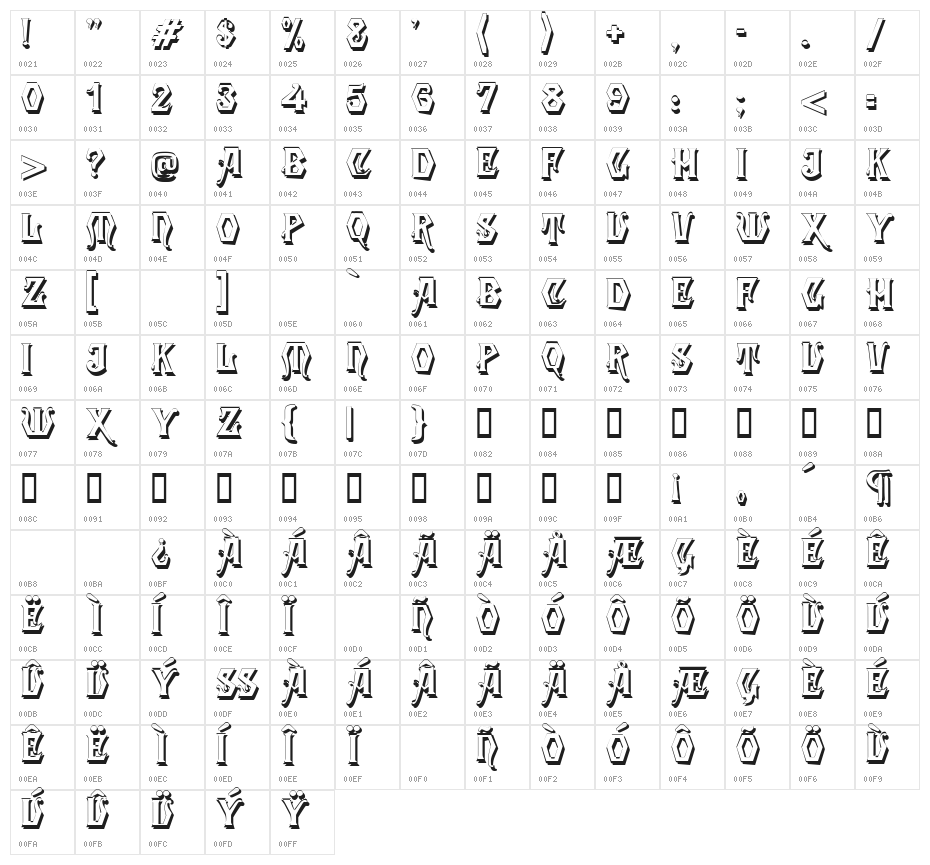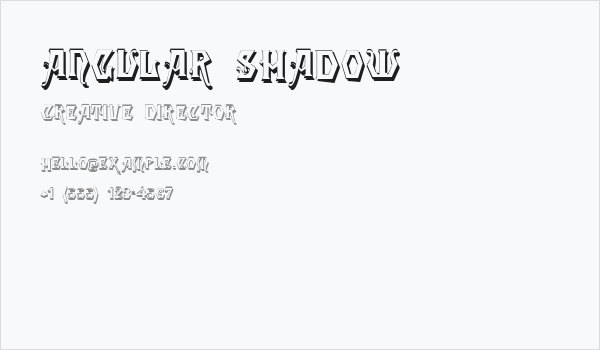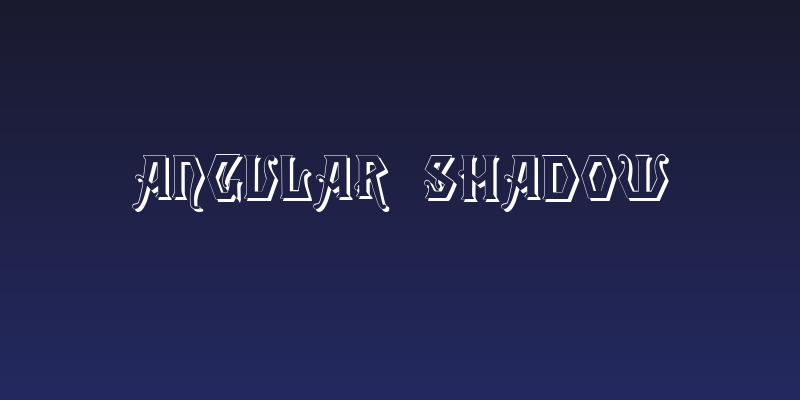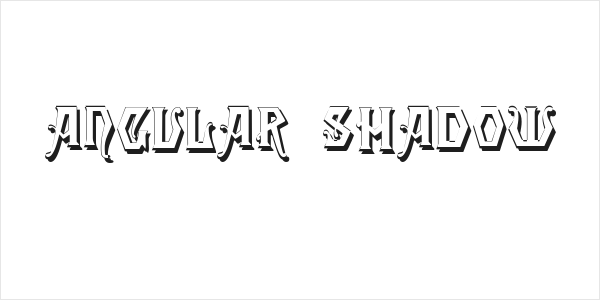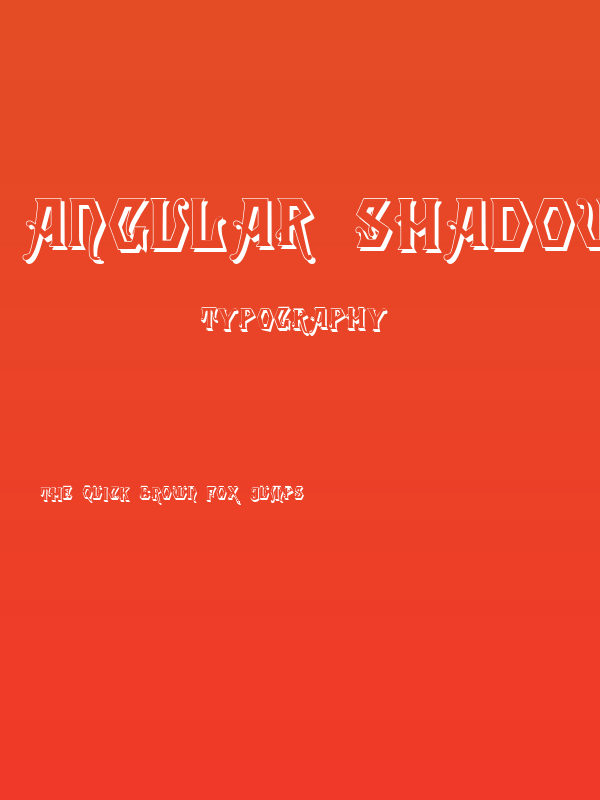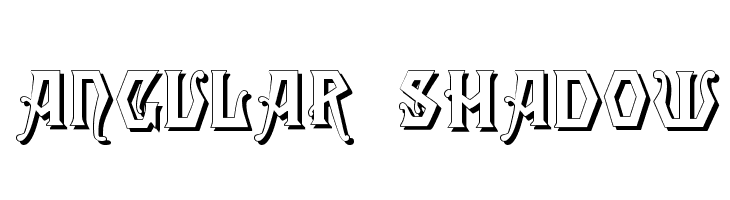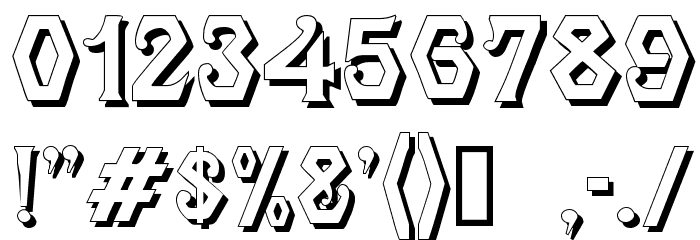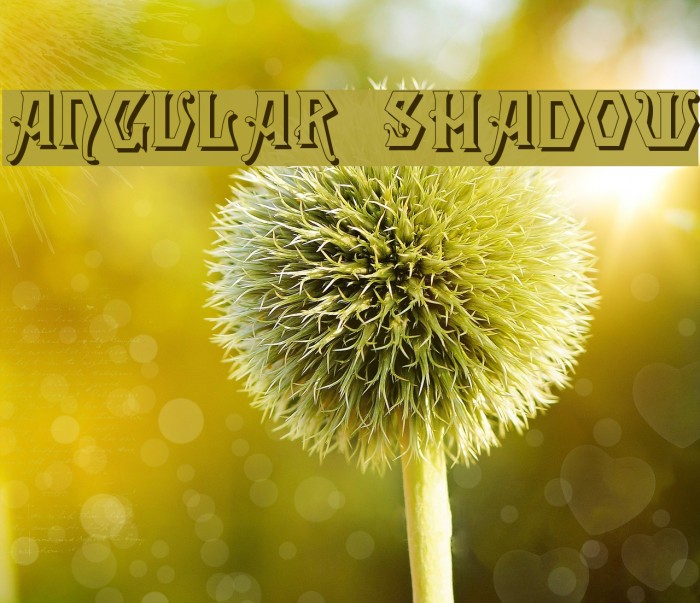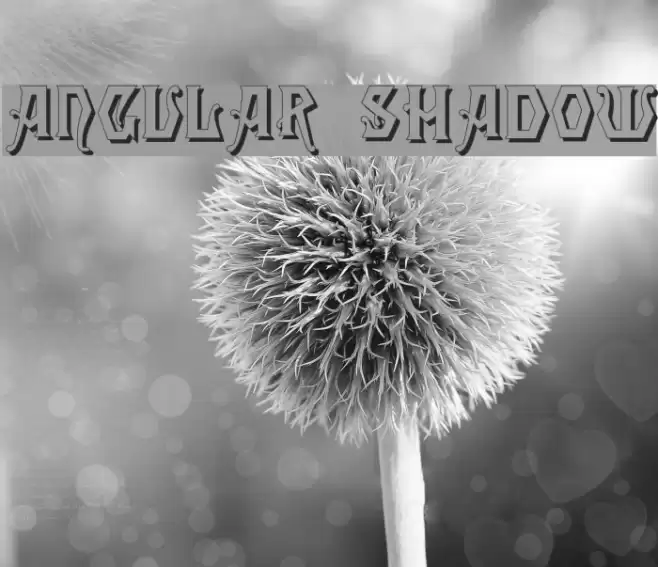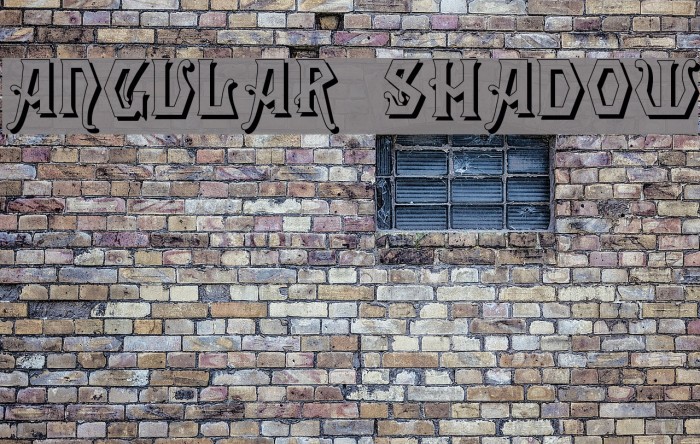
Angular Shadow Font
Angular Shadow Description
This font features a bold, angular design with a distinct shadow effect that gives each character a three-dimensional appearance. The sharp edges and geometric shapes create a striking and modern look, while the shadow adds depth and visual interest. The uppercase letters are particularly prominent, with a strong presence that commands attention. The numerals and special characters maintain the same angular style, ensuring consistency throughout the font. This font is ideal for projects that require a bold statement and a contemporary aesthetic.
| Proposed Projects | Ideal for headlines, posters, logos, and any design that requires a bold and modern aesthetic. |